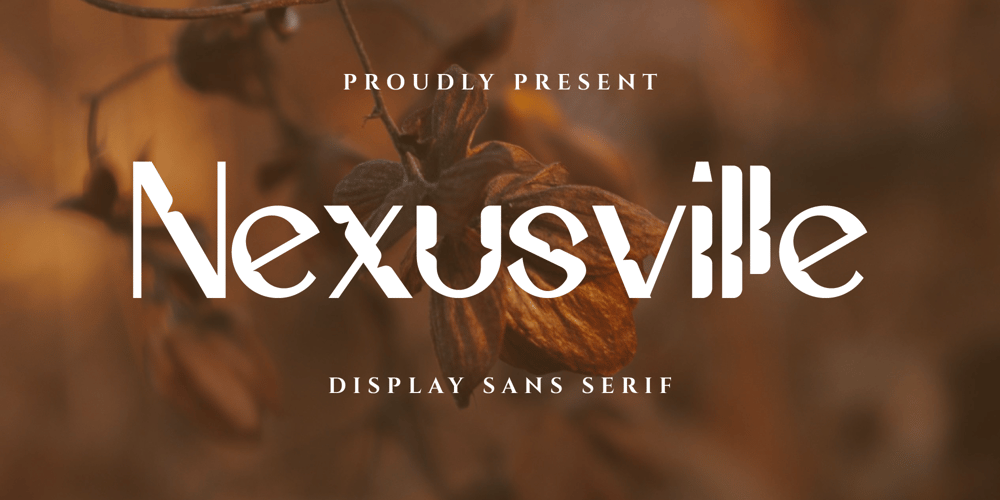
Nexusville Font Family was designed by Iwan Alwan and published by Artiveko. Nexusville contains 2 styles and family package options. Nexusville, a visionary display sans serif font that transcends the ordinary. Crafted with precision and passion by the master typographer, Iwan Alwan, Nexusville boasts a distinctive charm that sets it apart. Its uppercase and lowercase characters dance in harmony, each bearing its own captivating twist, while its multilingual support opens doors to boundless creativity across cultures. But Nexusville isn’t just about letters—it’s a symphony of design, embracing ligatures and alternates that weave a tapestry of endless possibilities. Whether gracing a digital interface or commanding attention in print, Nexusville invites you to explore the nexus of artistry and innovation, where every stroke tells a story and every curve sparks inspiration. Join the journey with Nexusville—where the language of design knows no bounds.